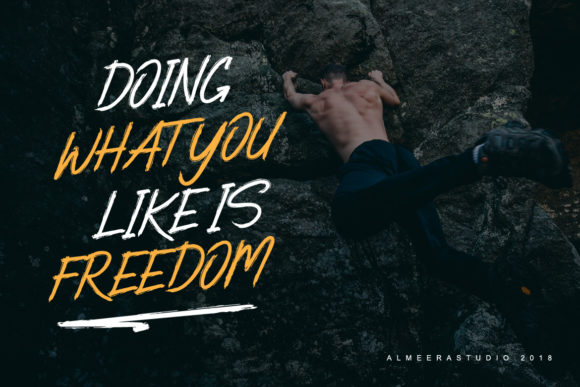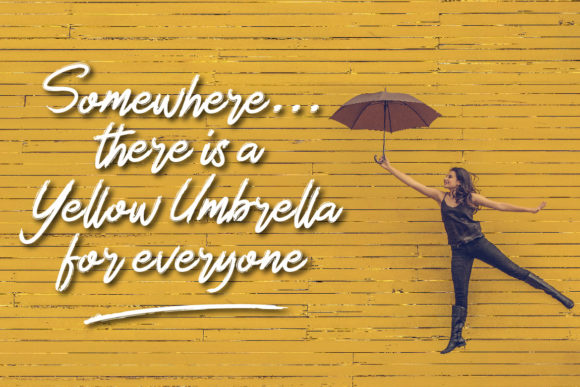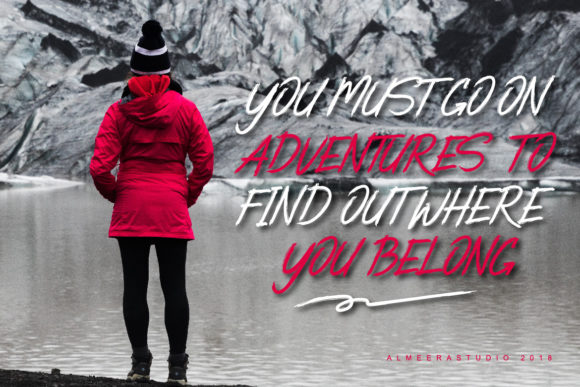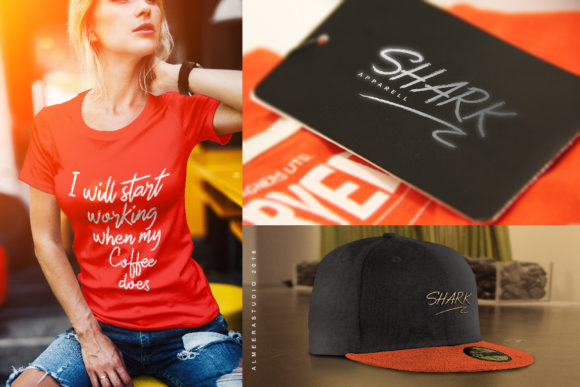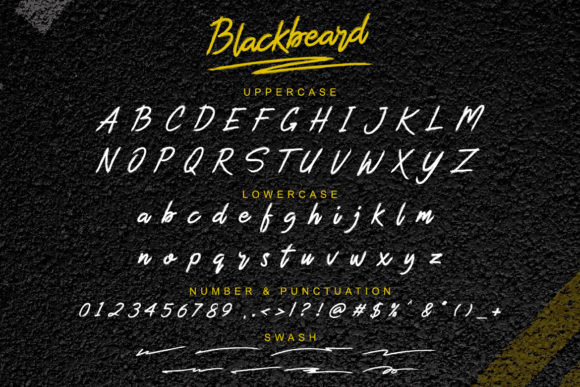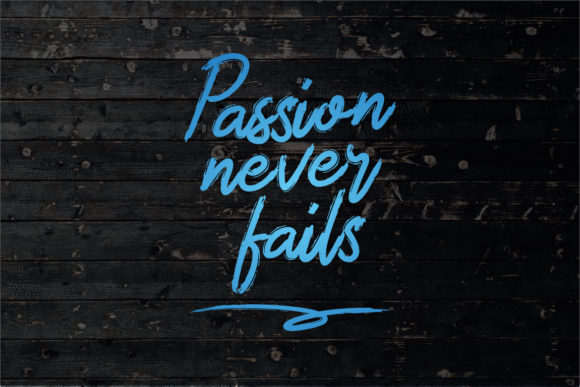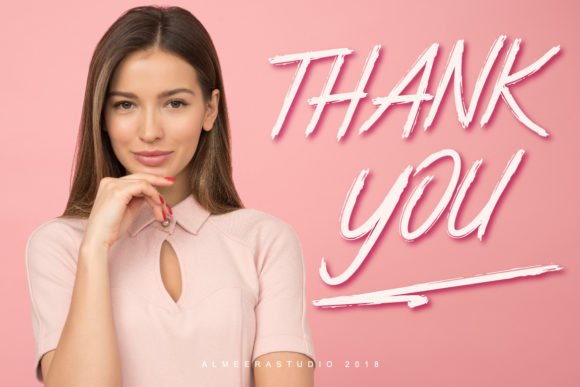
Blackbeard Font
About Blackbeard Font
The Blackbeard is a striking brush font. It was designed to be combined with other typefaces perfectly. It allows you to create stunning hand-lettering brush in an instant.